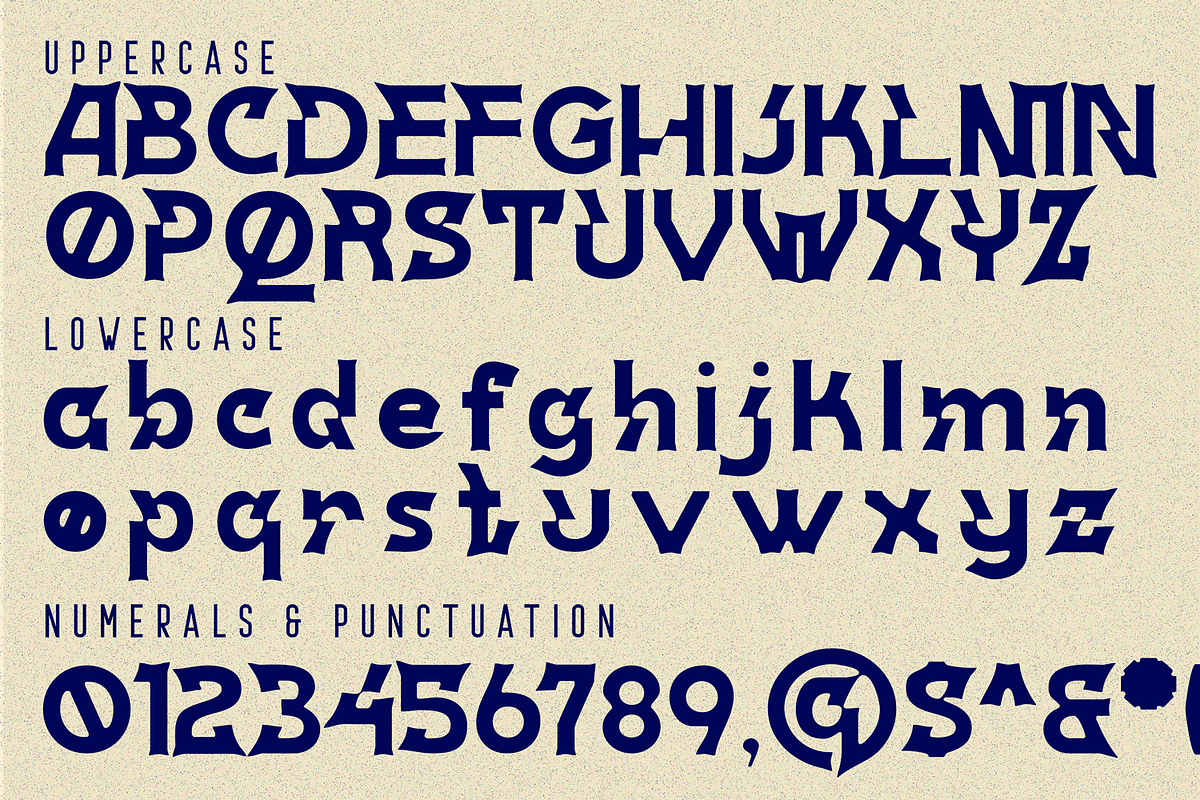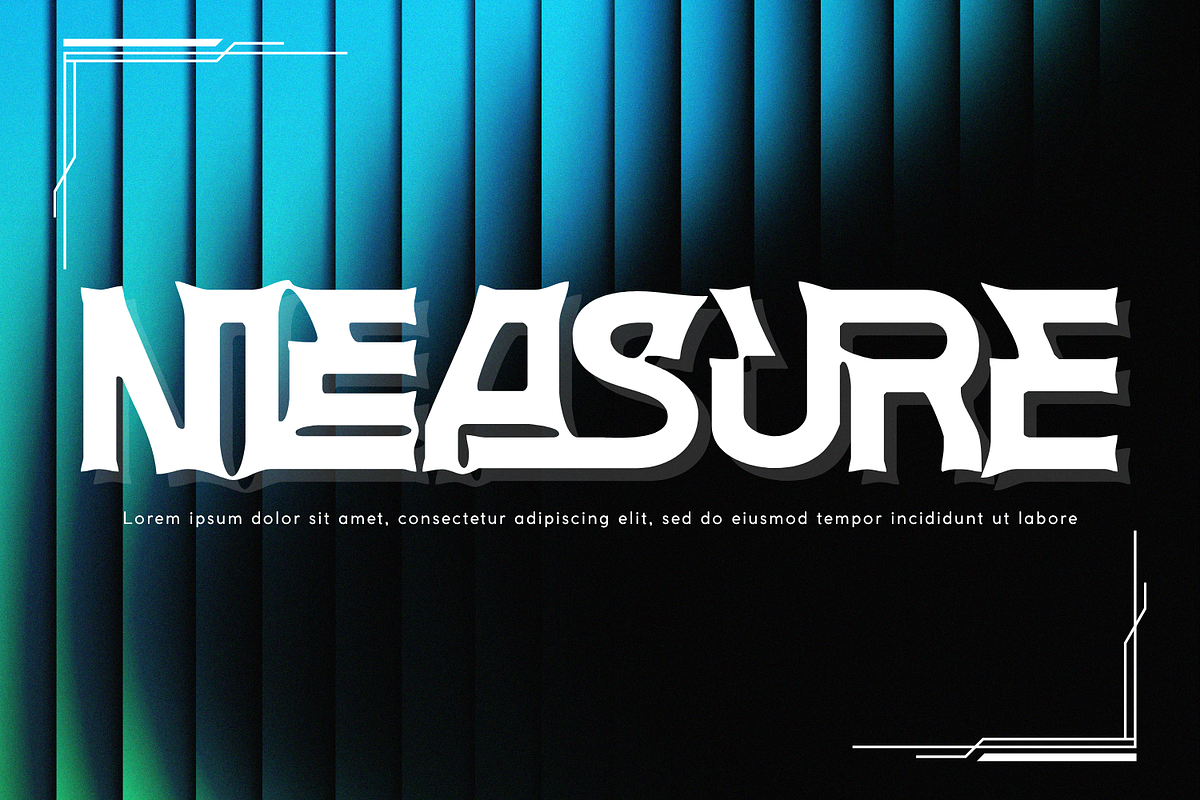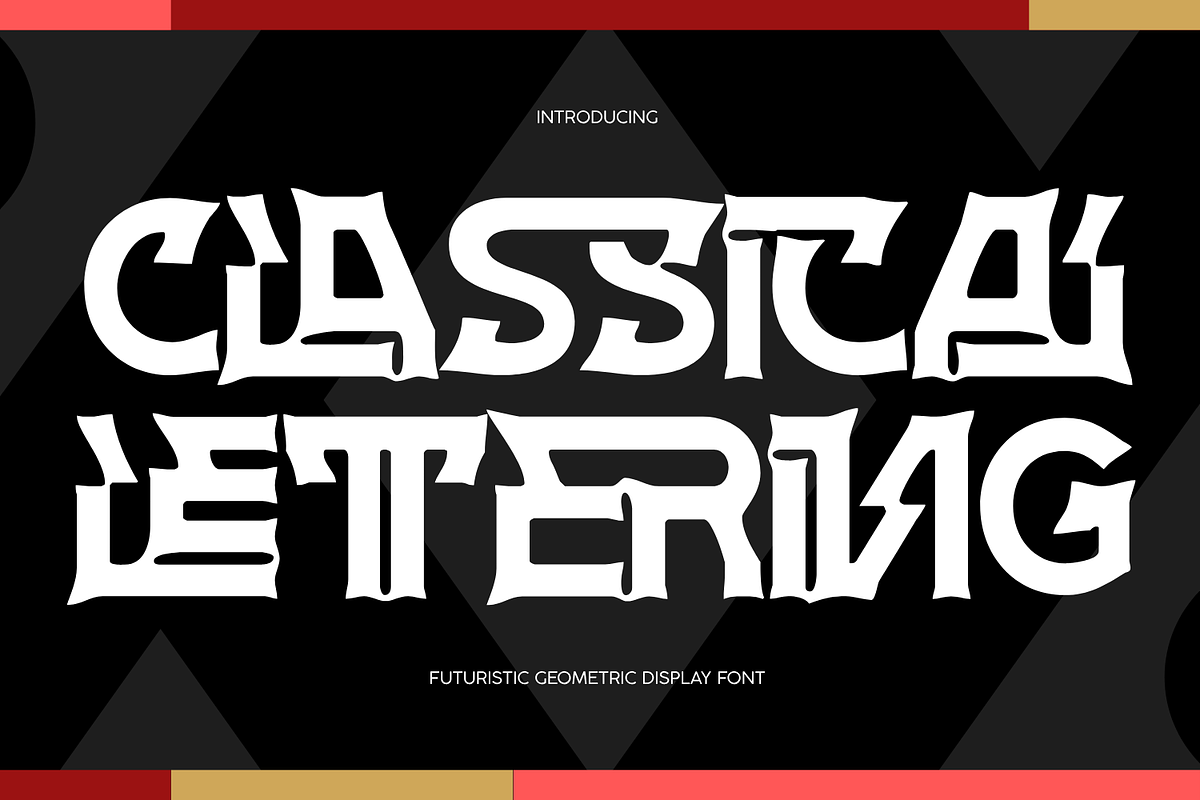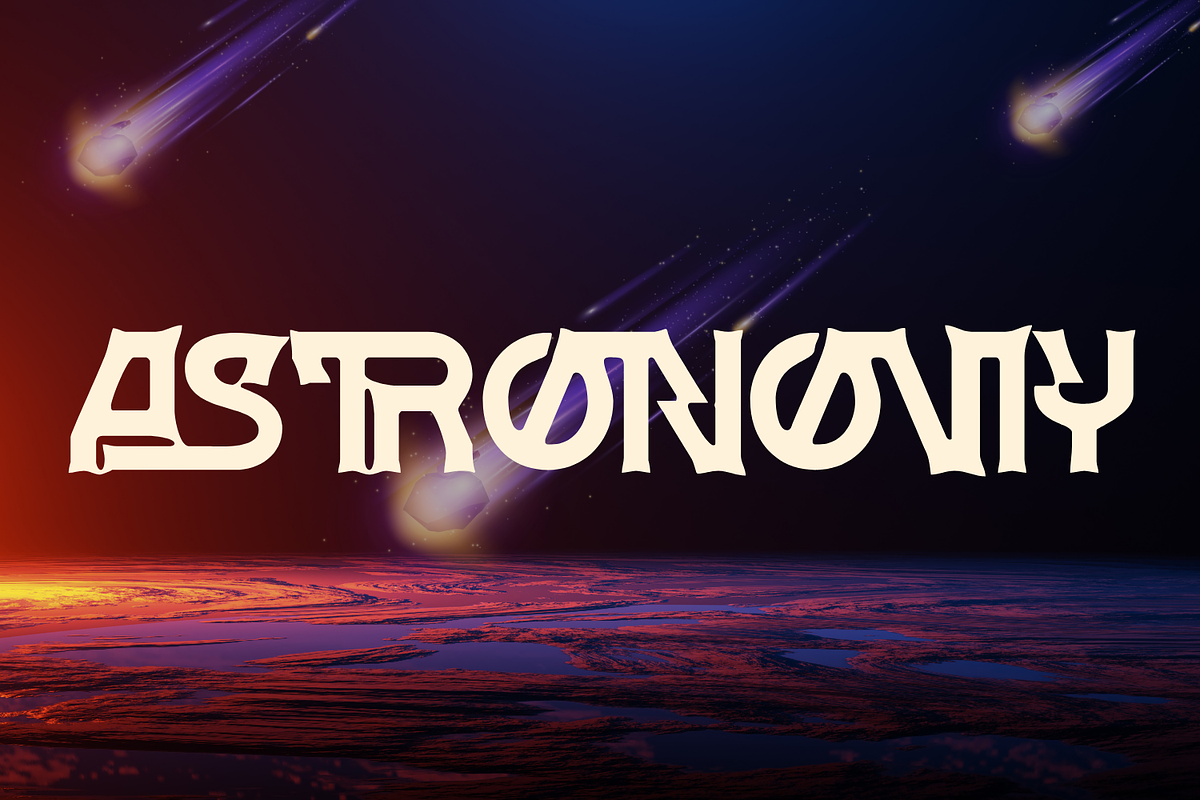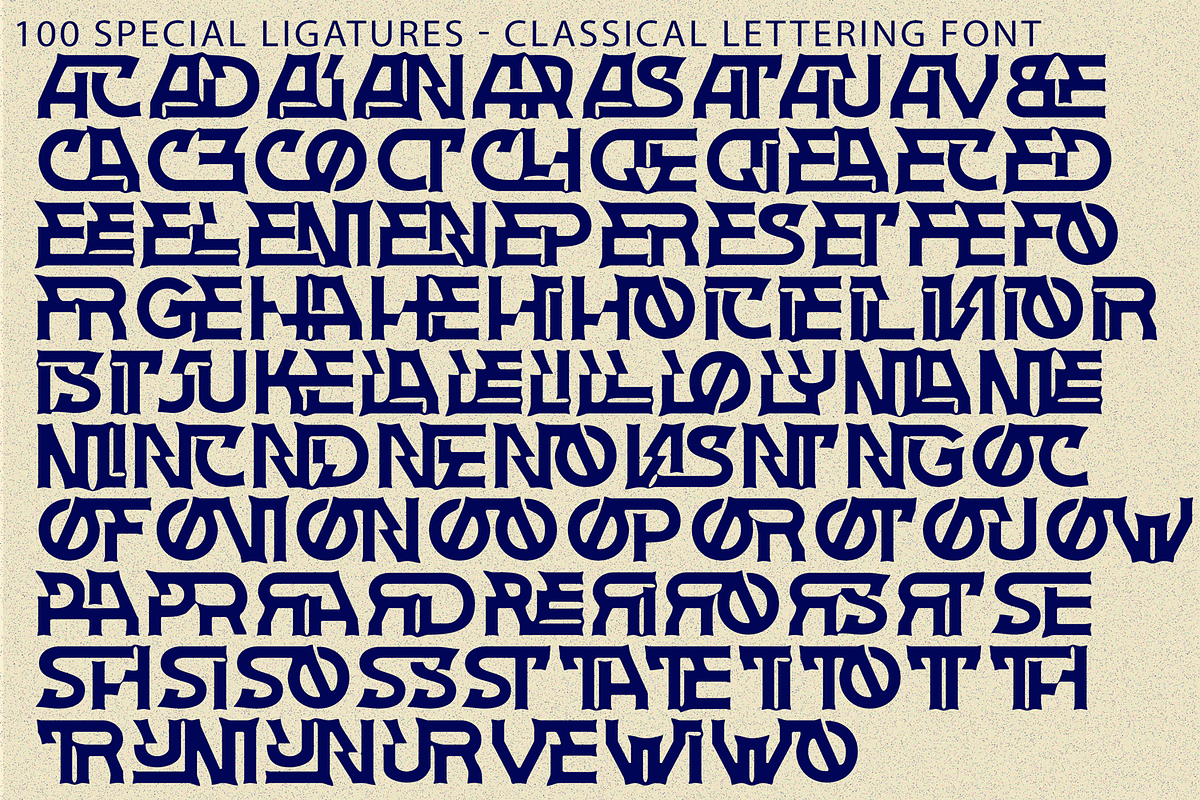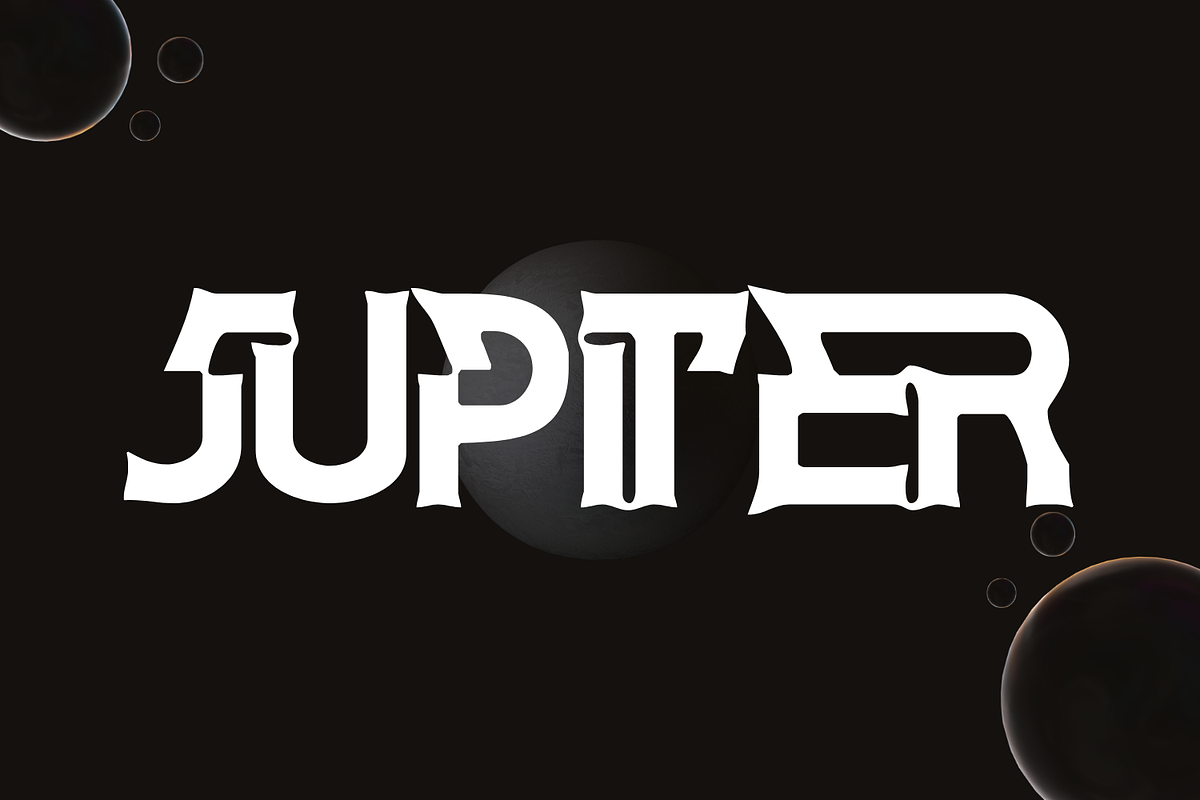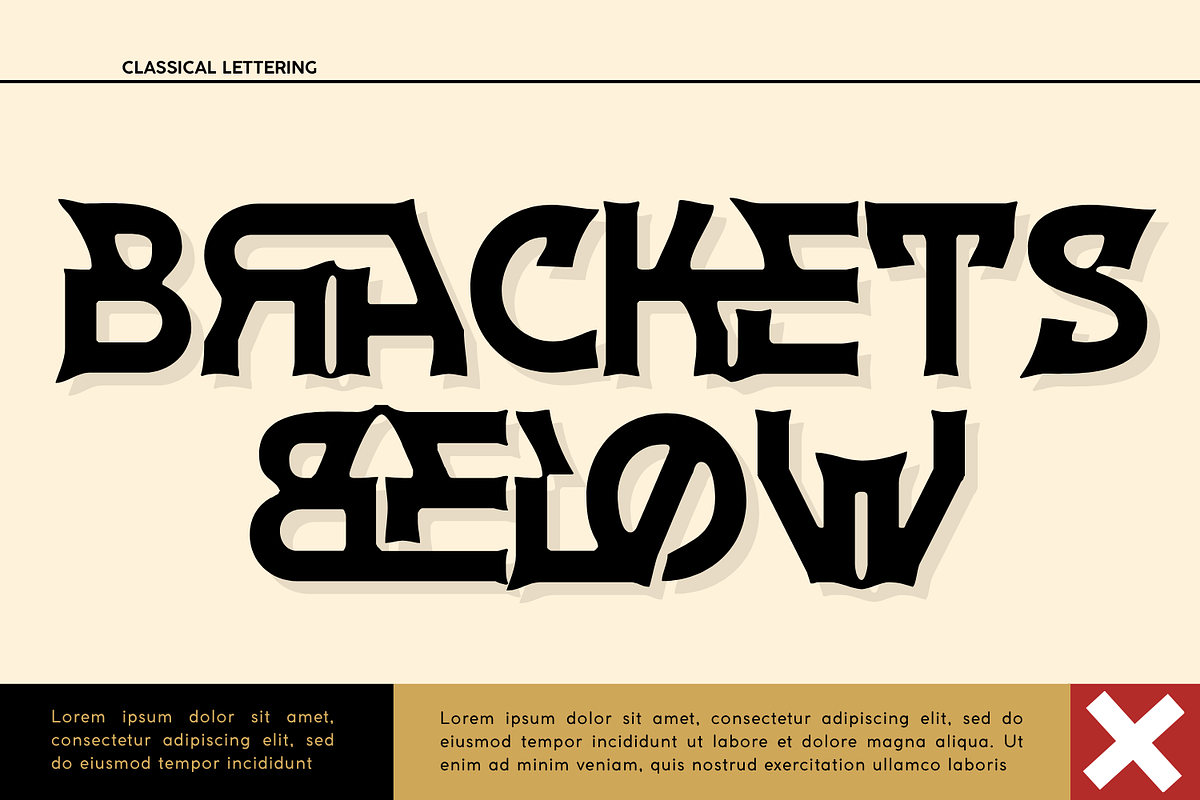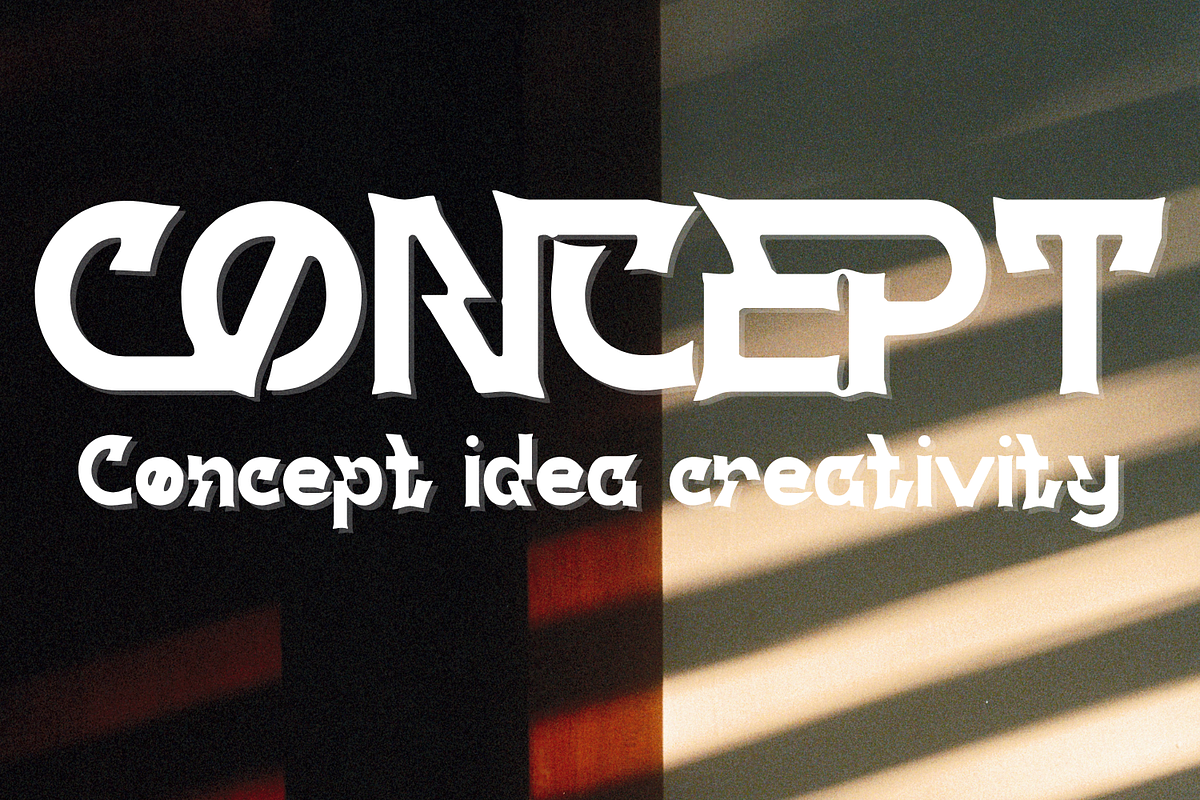
CLASSICAL LETTERING - CYBERPUNK FONT
CLASSICAL LETTERING - CYBERPUNK FONT – Futuristic Flared Stencil & Interlocking Cyber Display Font is a bold decorative display typeface that blends the expressive character of vintage lettering with a fresh experimental approach. Built with heavy letterforms, sculpted curves, flared terminals, sharp cuts, and subtly irregular details, the typeface has a distinctive handcrafted personality that immediately stands out.
Rather than following the strict rules of a traditional serif or sans serif, CLASSICAL LETTERING combines multiple typographic influences into an expressive display style. Dramatic curves meet angular shapes, while unusual terminals, compact counters, and playful structural details give each character its own personality. The slightly organic contours add the warmth of hand-drawn lettering while maintaining enough strength and consistency for contemporary graphic design.
🔤Features:
Uppercase & Lowercase Letters
Around 100 Special Ligatures & Alternates
Accented Characters for multilingual support
🔤About 100 ligatures combined with Stylistic Alternates Font:
AC AD AL AN AR AS AT AU AV BE CA CE CH CO CT DE DI EA EC ED EE EL EM EN EP ER ES ET FE FO FR GE HA HE HI HO IE IC IL IN IO IR IS IT JU KE LA LE LI LL LO LY MA ME MI NC ND NE NG NO NT NS OC OF OM ON OO OP OR OT OU OW PA PR RA RD RE RI RO RS RT SE SH SI SO SS ST TA TE TH TI TO TR TT UM UN UR VE WI WO